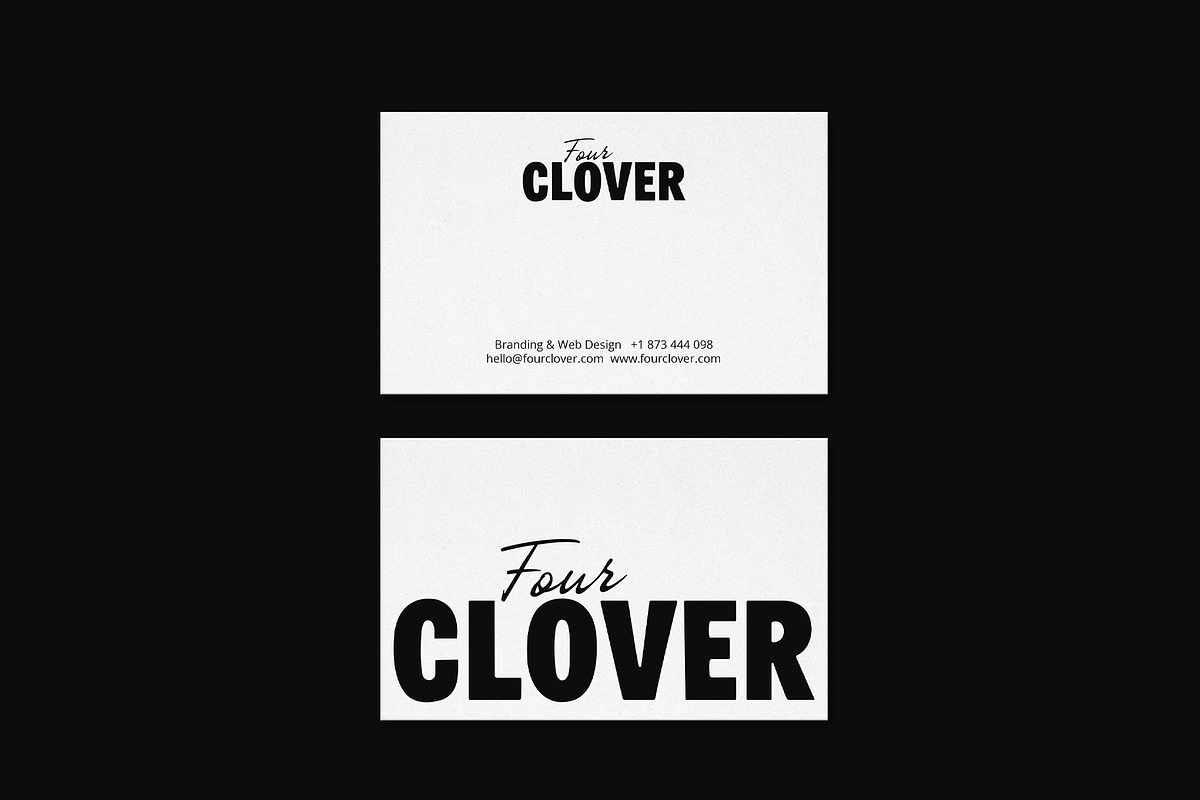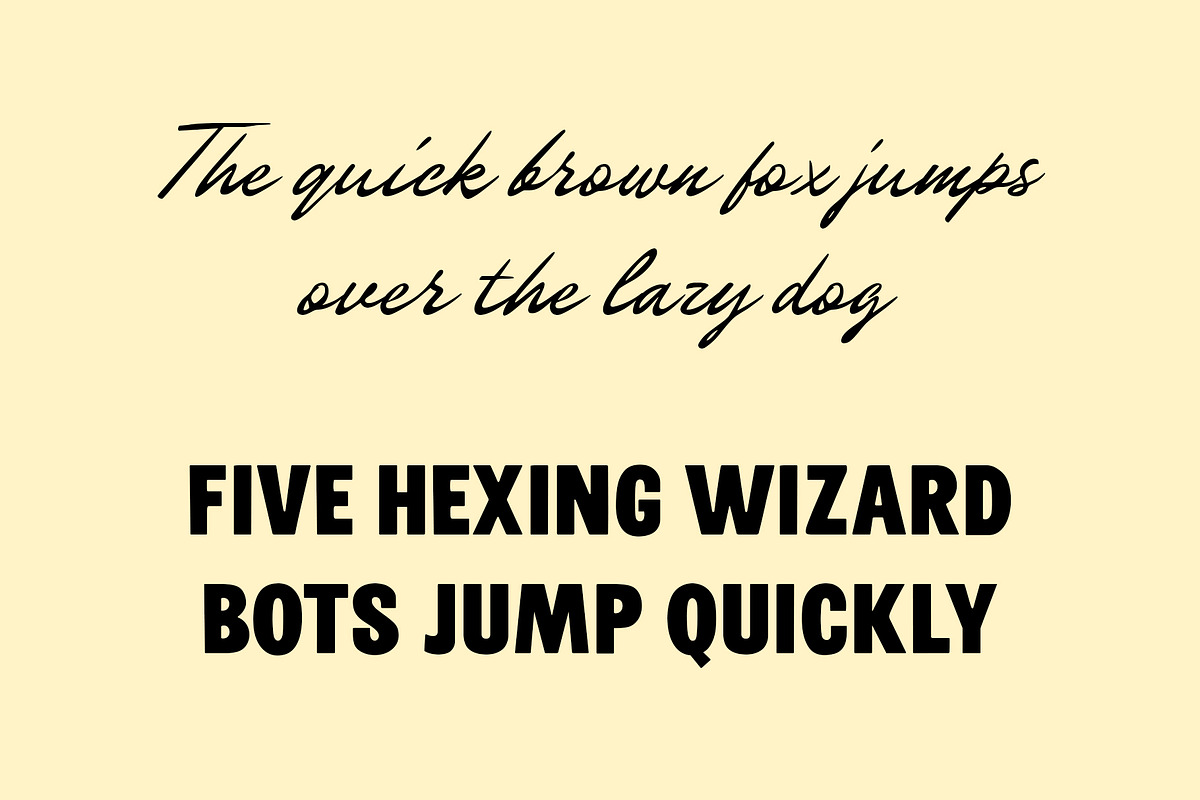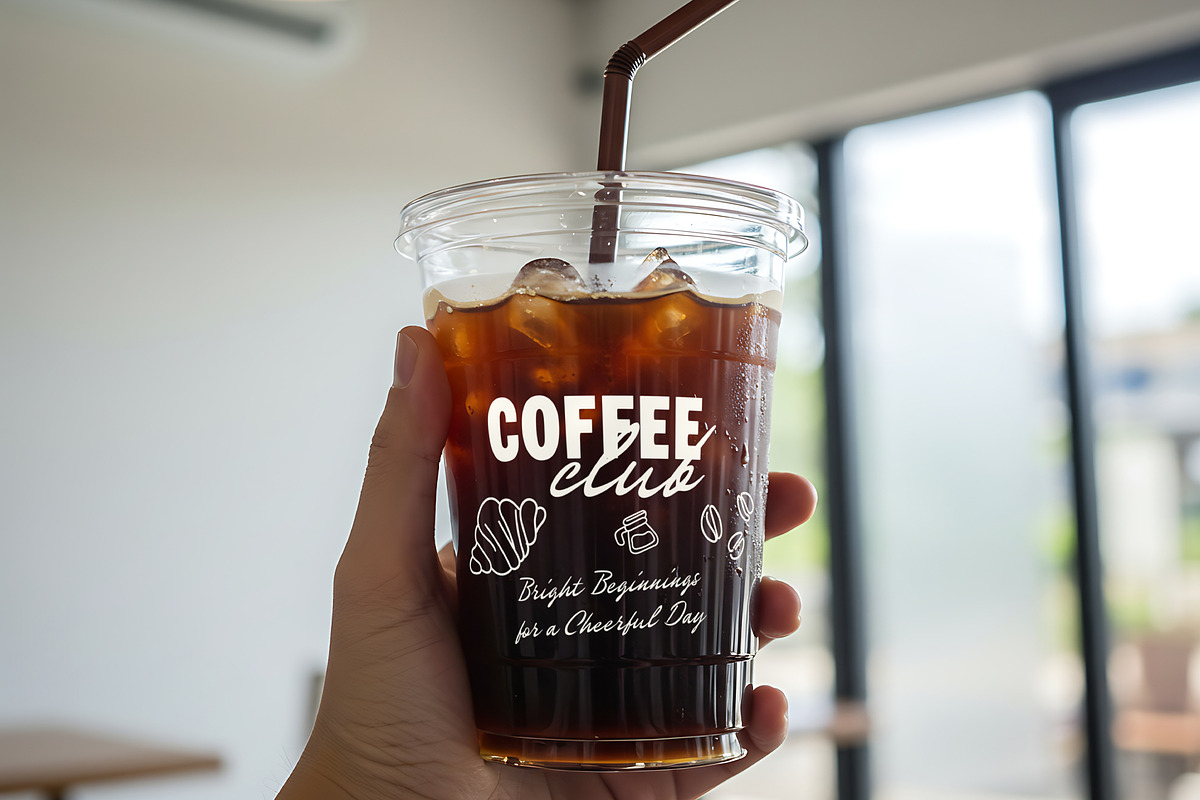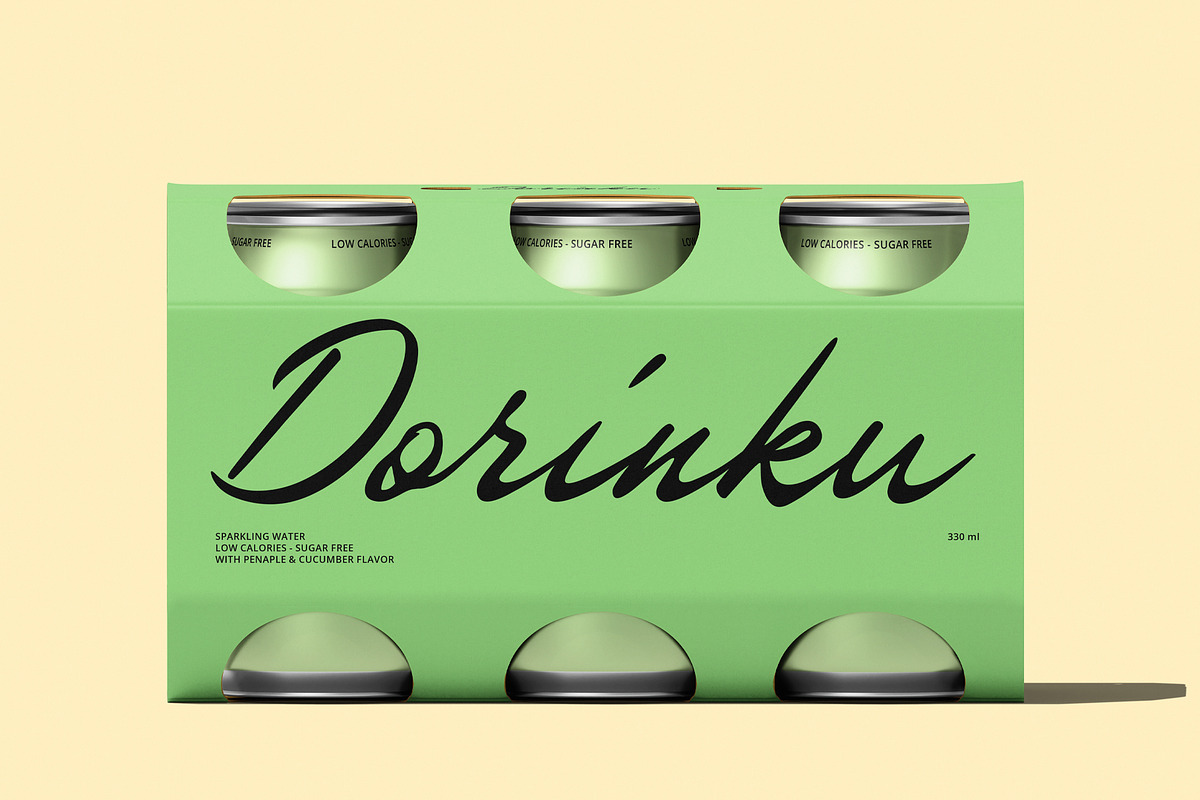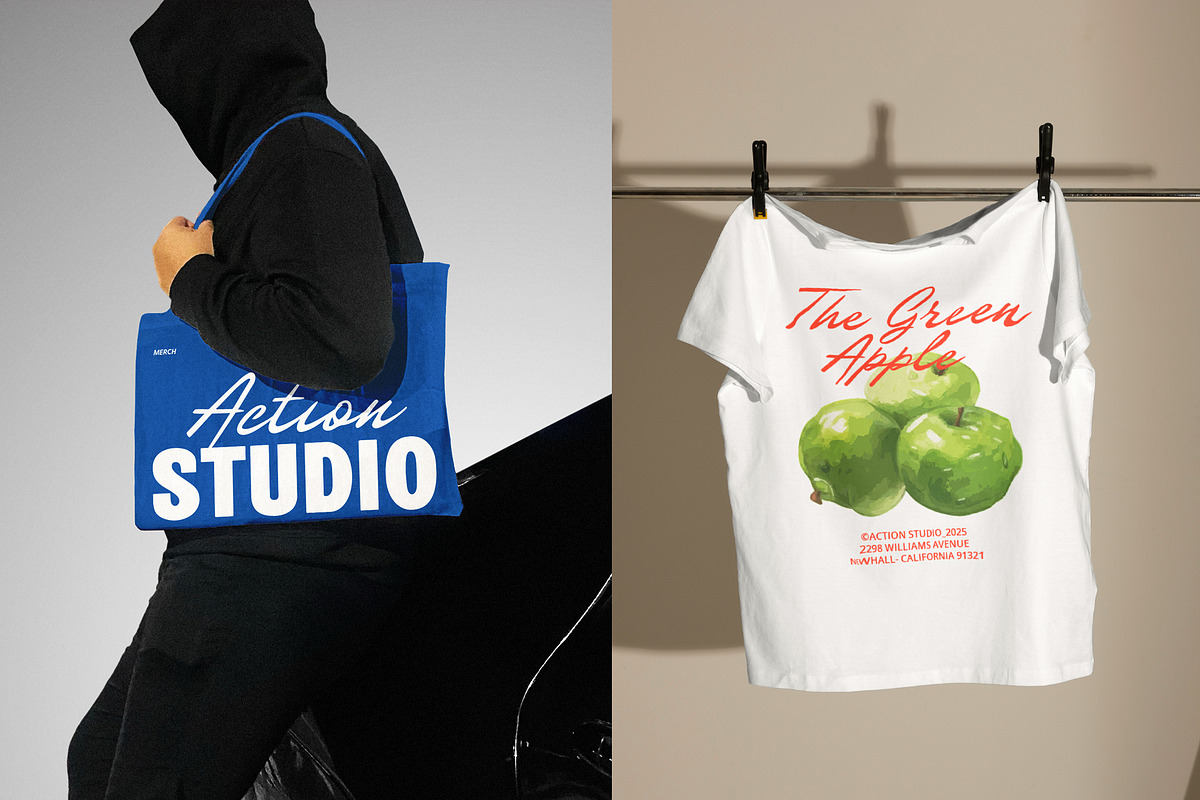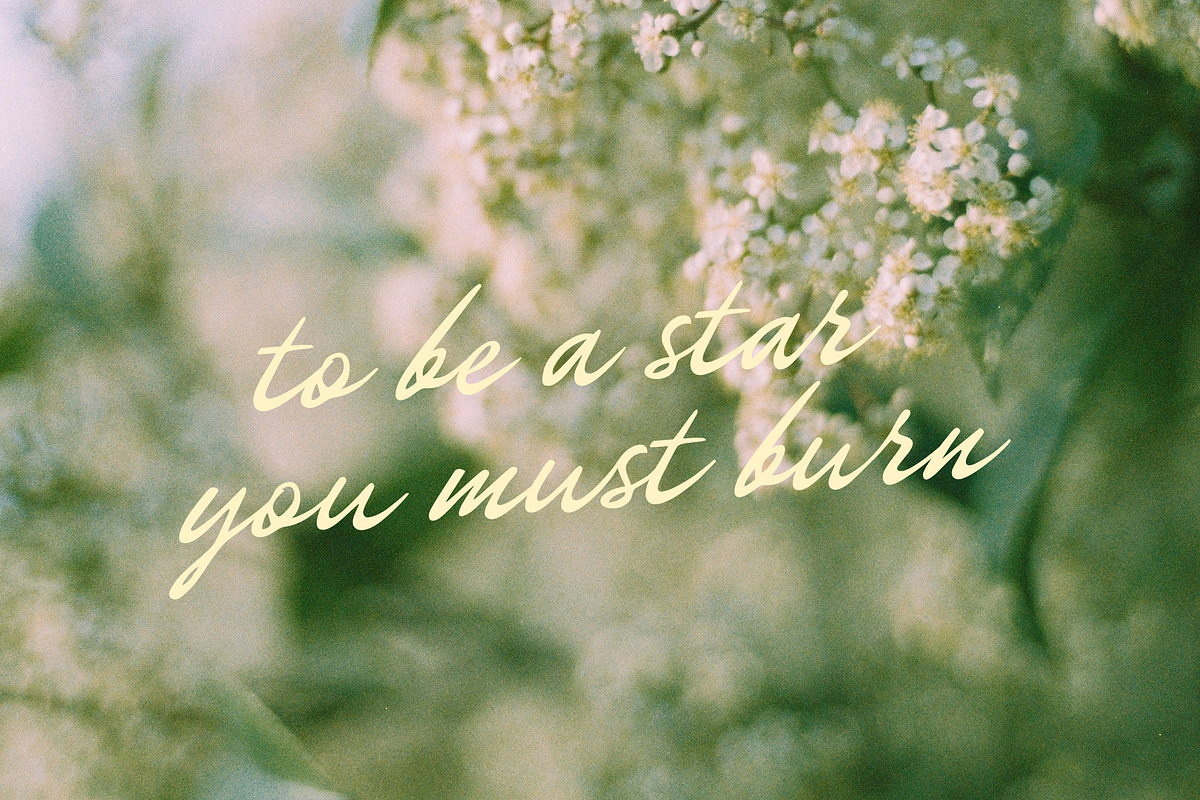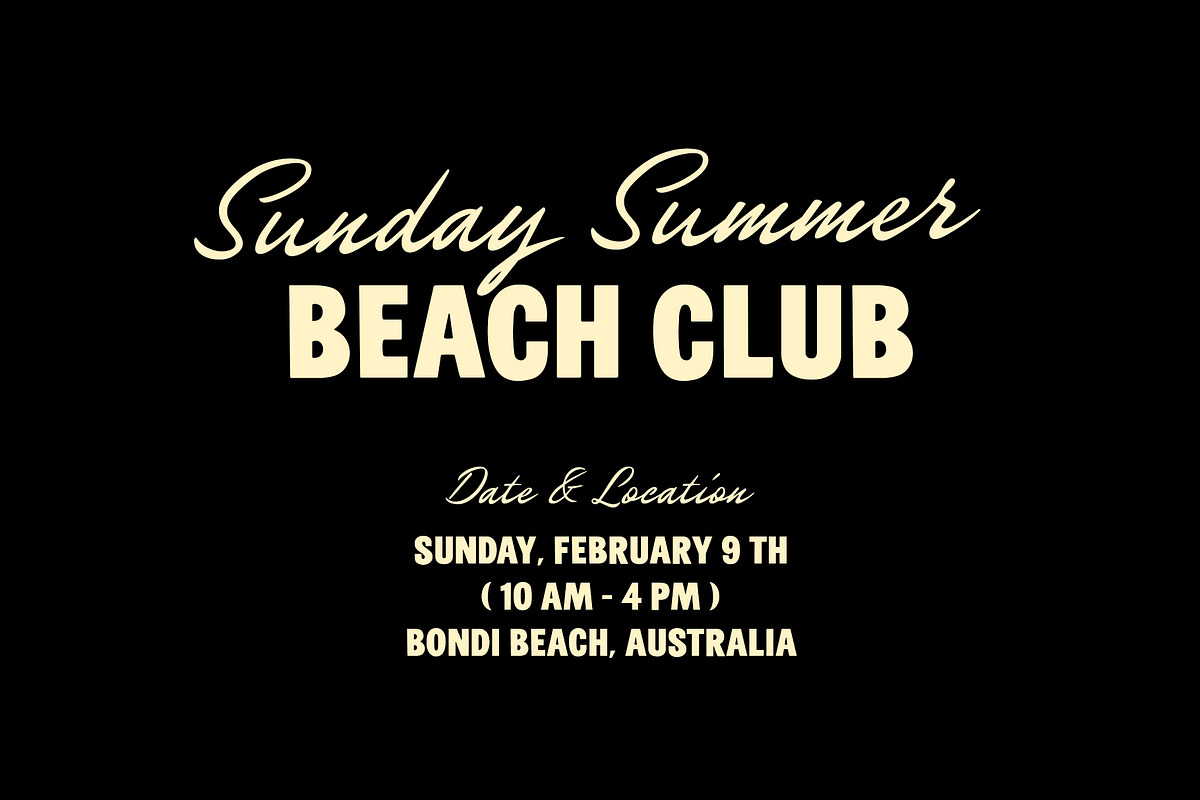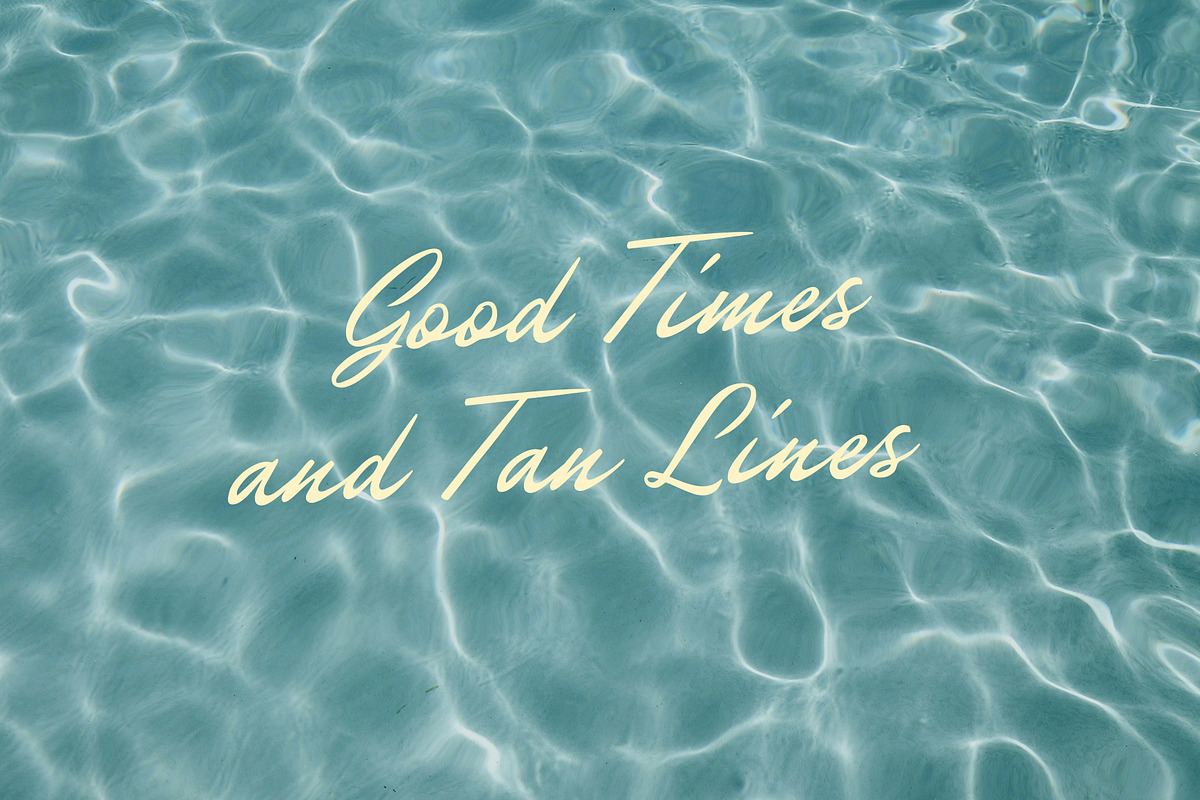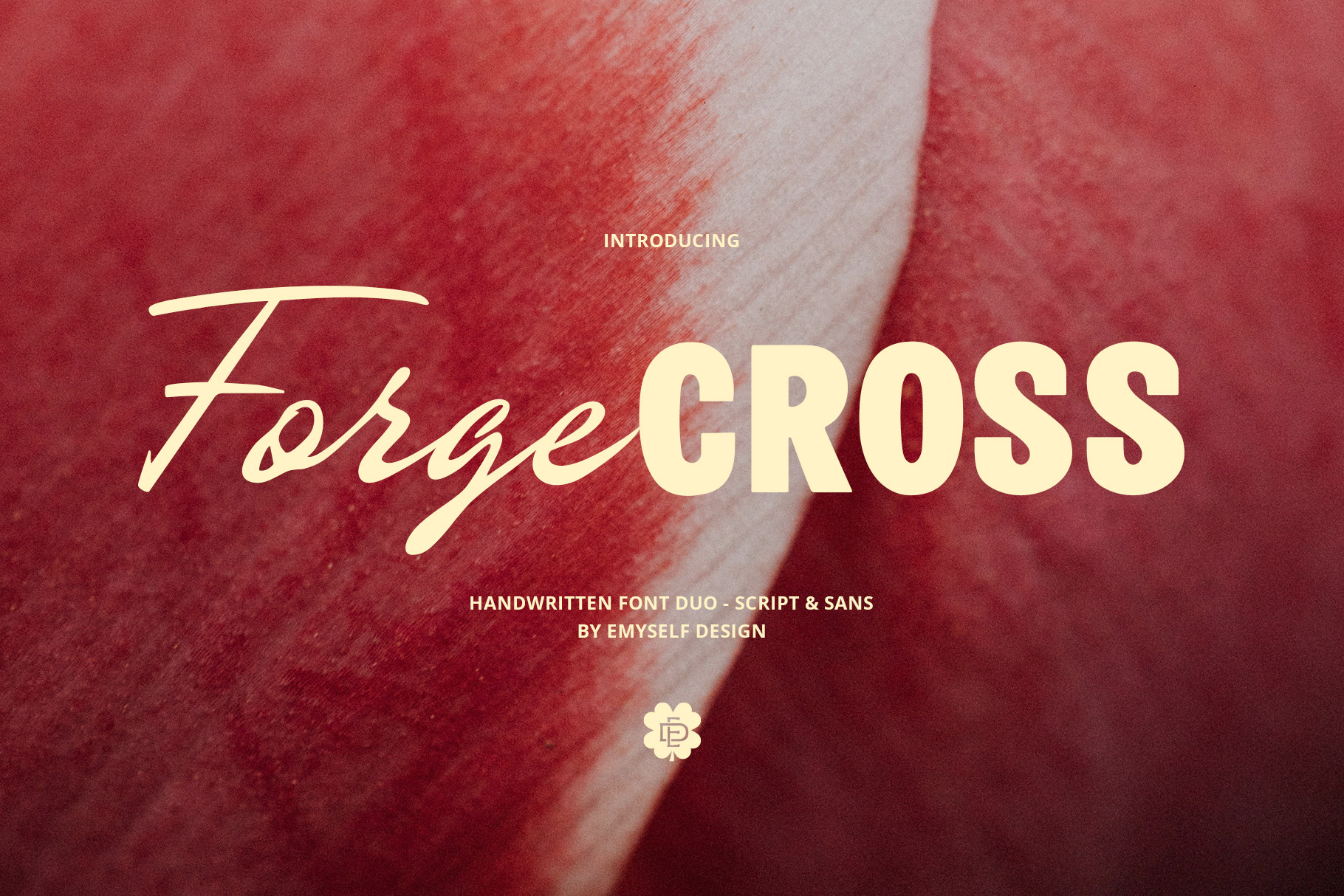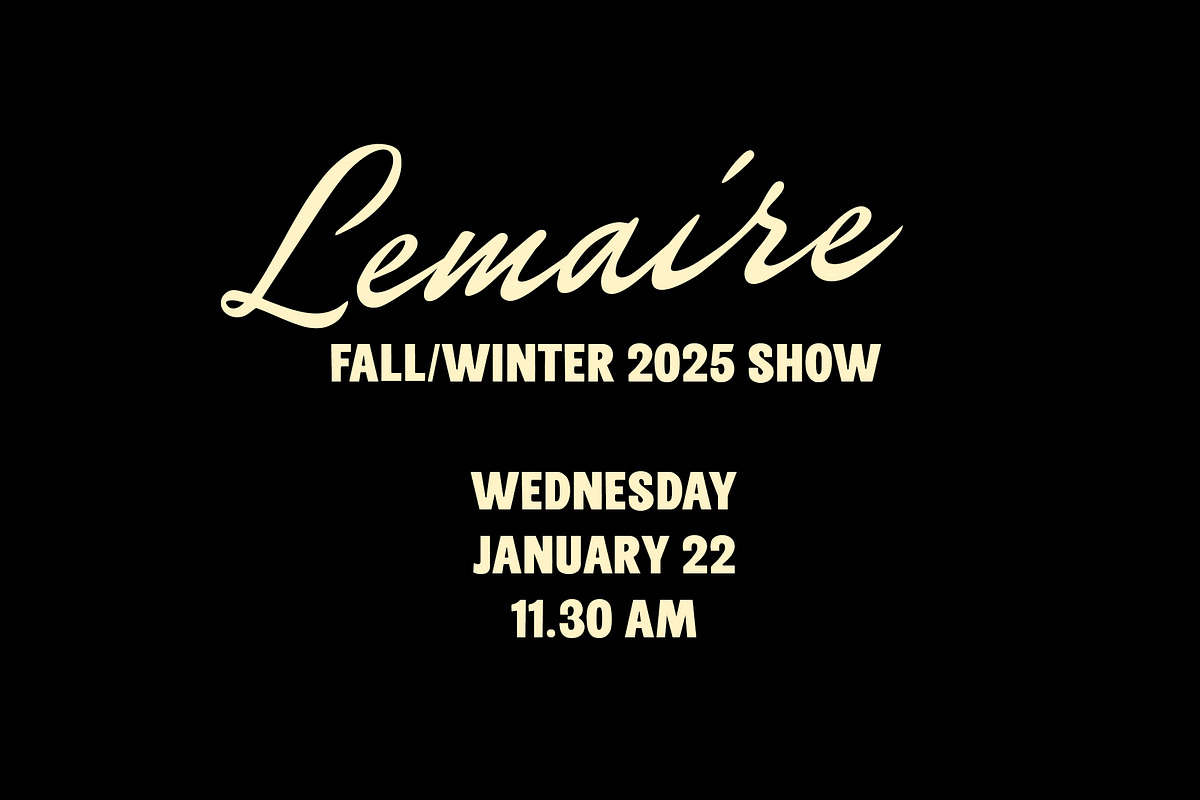
ED Forge Cross - Handwritten Font
ED Forge Cross is a versatile duo font that combines the charm of a handwritten script with the bold confidence of a clean sans serif. Designed to create a perfect balance between elegance and strength, this duo font gives you the flexibility to mix and match styles in your projects.
The handwritten script offers a natural, personal touch with smooth flowing strokes, while the sans serif provides a strong and modern contrast. Together, they create a dynamic pairing that works beautifully for branding, logos, posters, packaging, social media, invitations, and more.
- Total Glyphs: Script 400 / Sans 376
- Stylistic Sets ( Script font )
- Punctuation and Marks